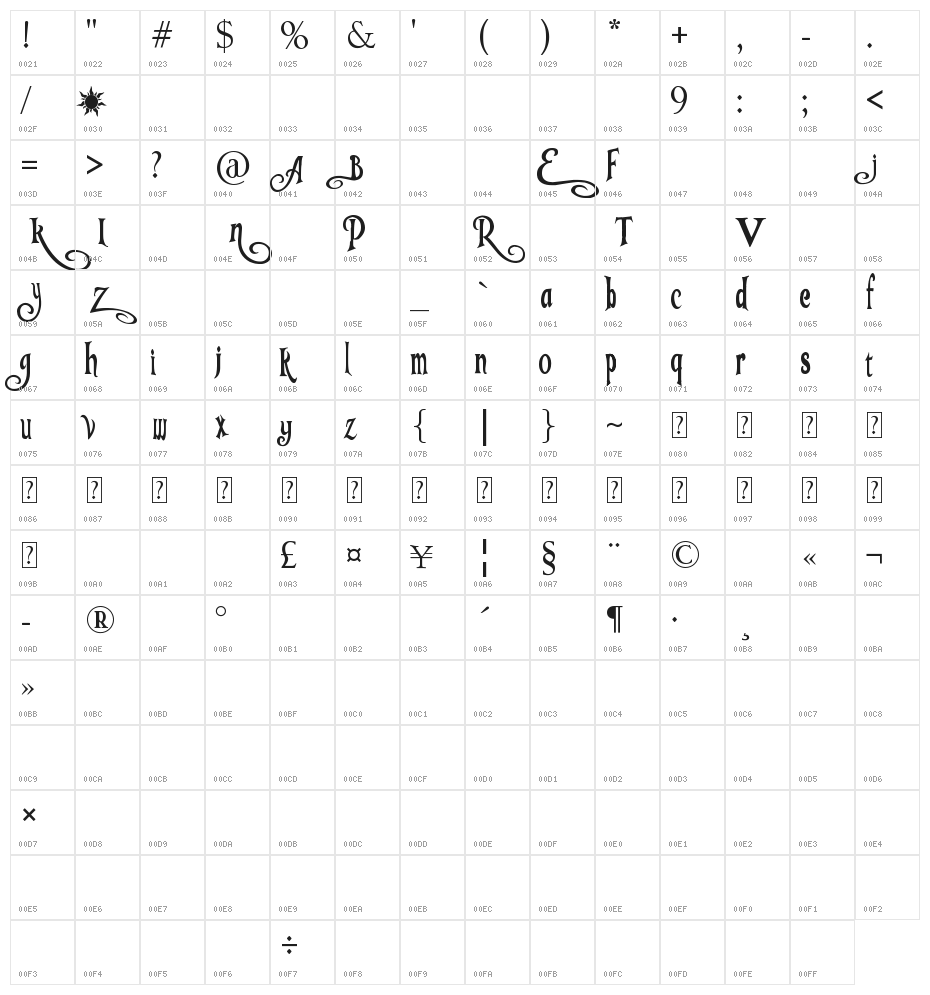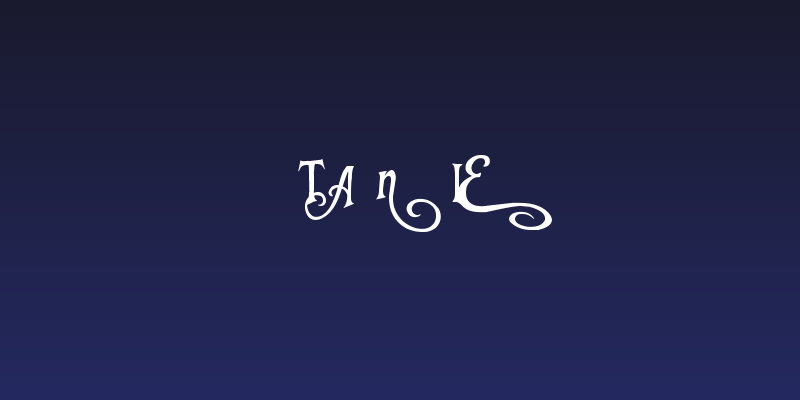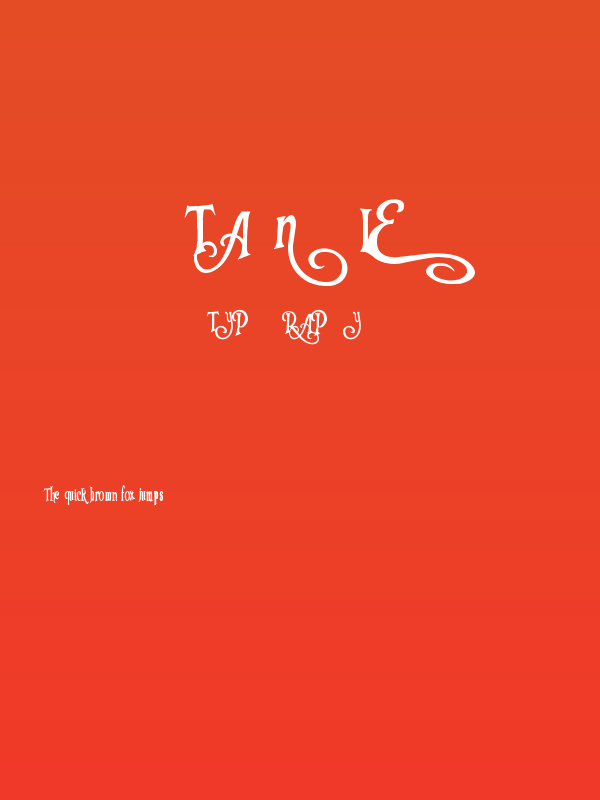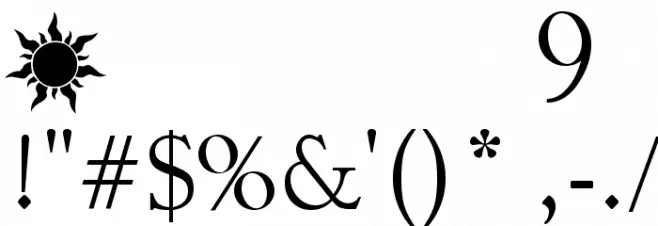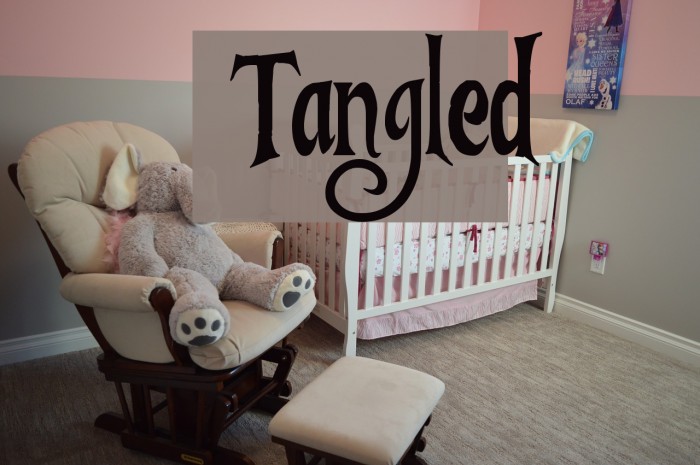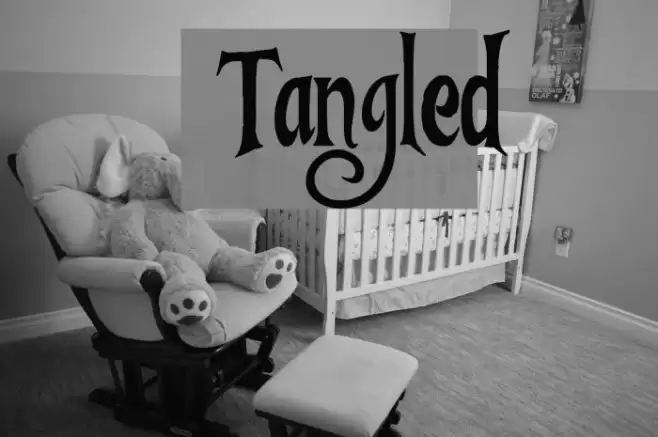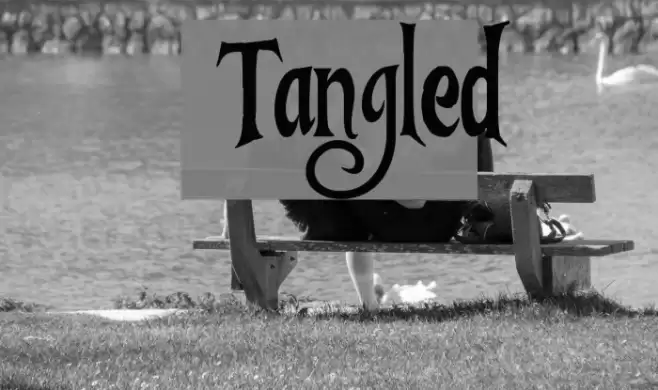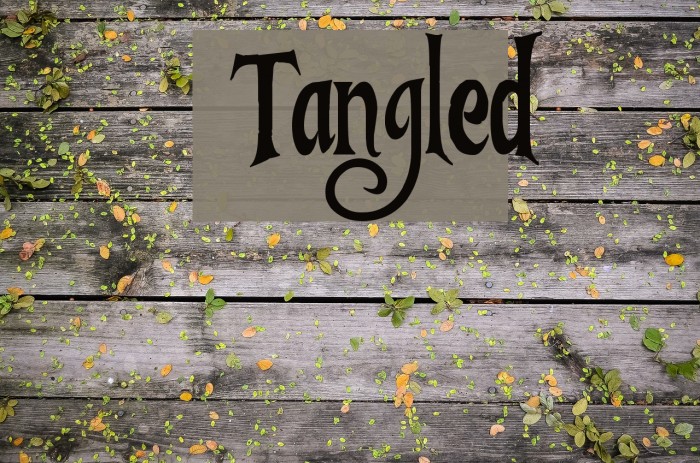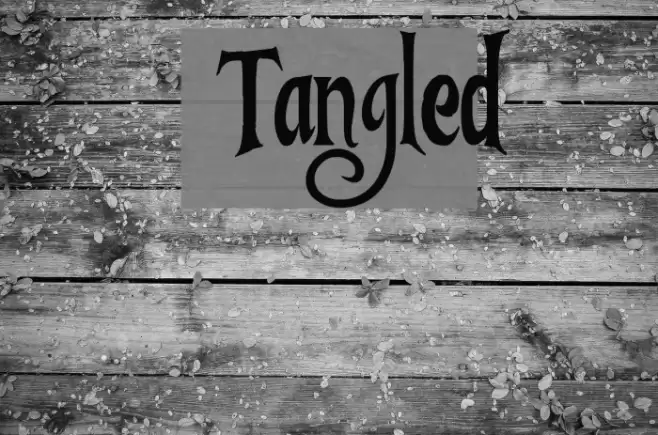
Tangled Font
| Cas d'utilisation | Logos, Headlines, Invitations |
| Projets proposés | Ideal for wedding invitations, fantasy book covers, branding for luxury products, and decorative posters. |